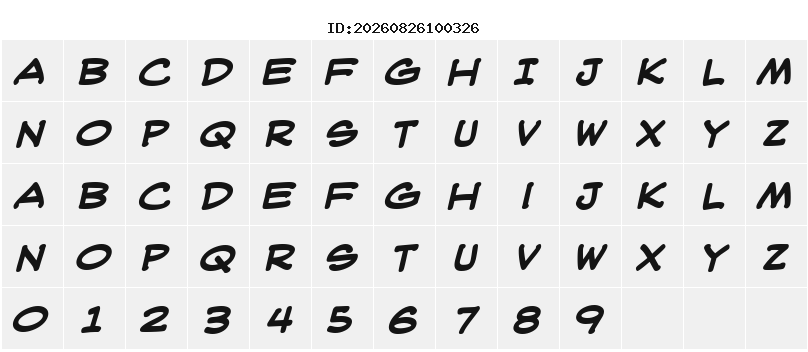
WebLetterer BB Preview
• Font Name: WebLetterer BB
• Font ID: WebStrip BB
• Full Font Name: WebLetterer BB Bold
• Version: Macromedia Fontographer 4.1 6/16/04
• PostScript Name: WebLettererBBBold
• Character Count: 105
About WebLetterer BB.ttf
WebLetterer BB.ttf is a modern, elegant sans-serif font designed for ultimate readability and visual harmony. Perfect for branding, headlines, web design, and print materials.